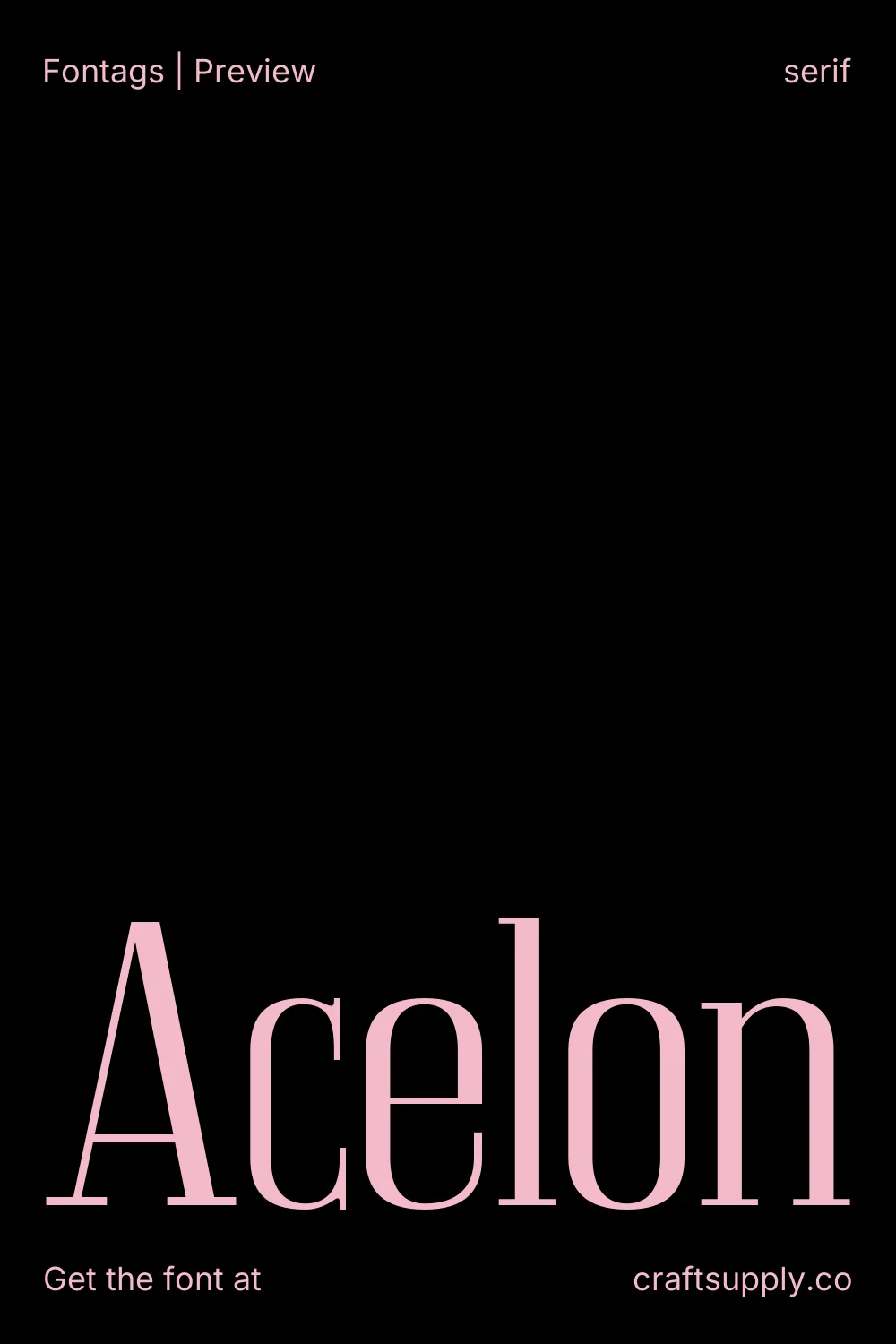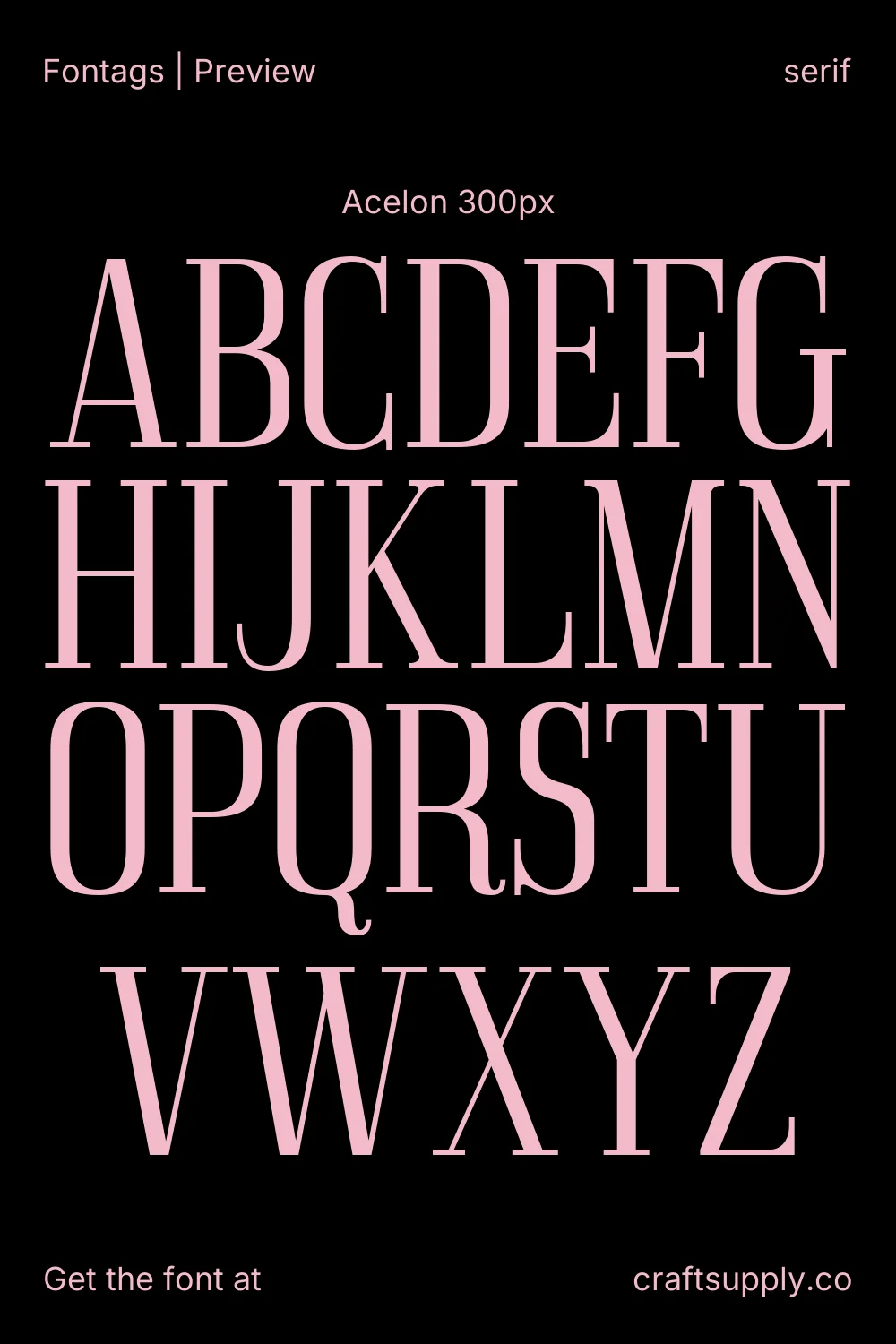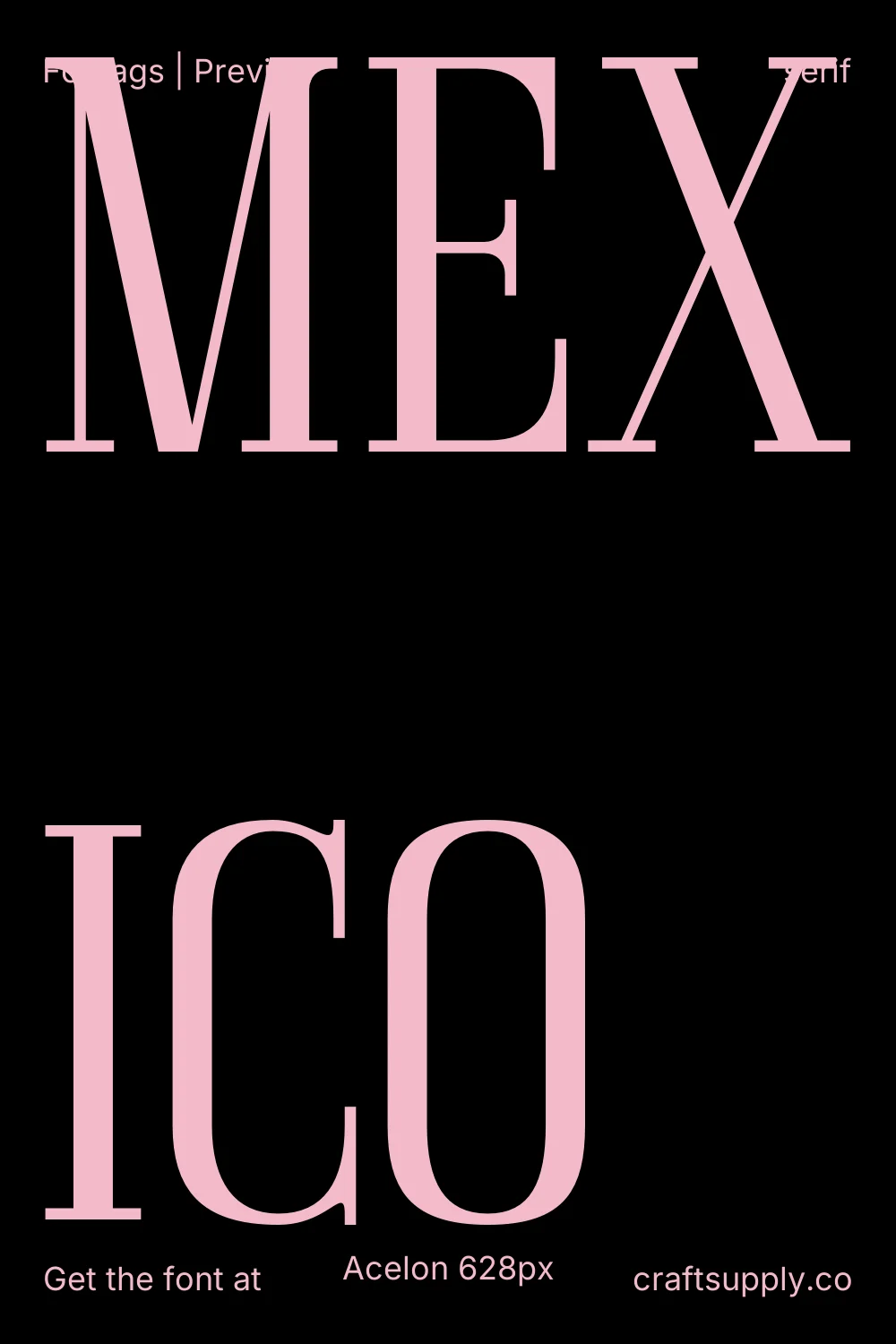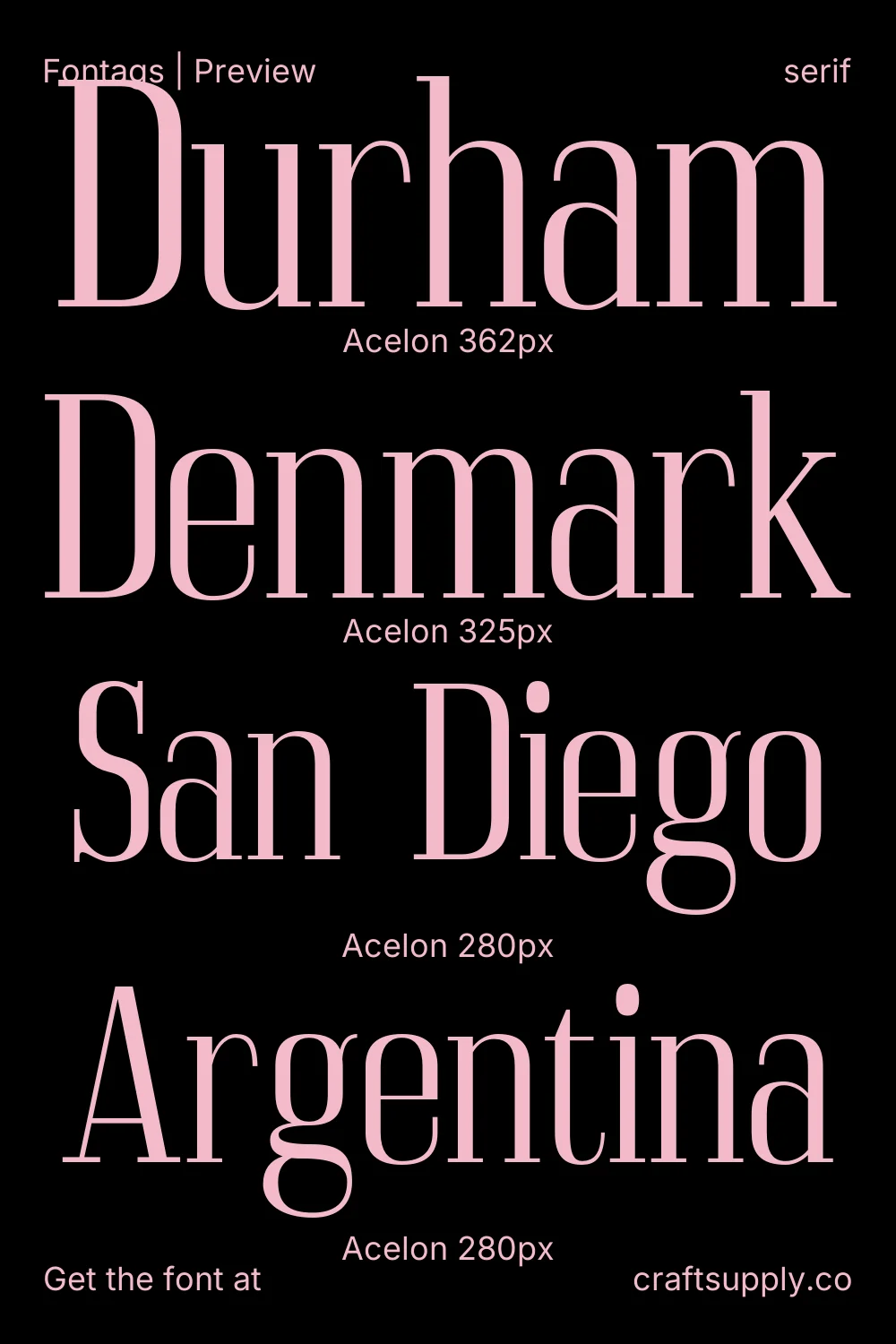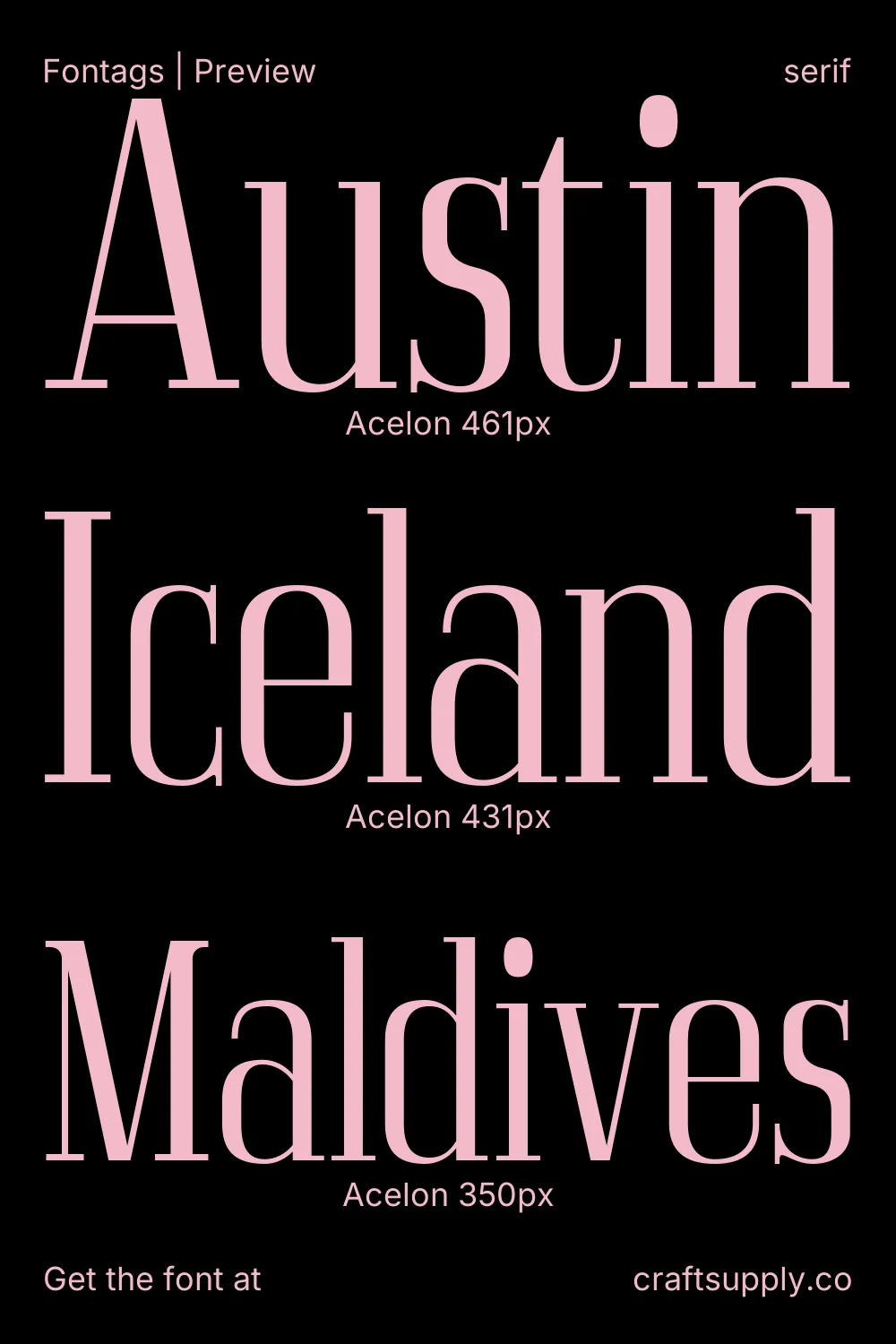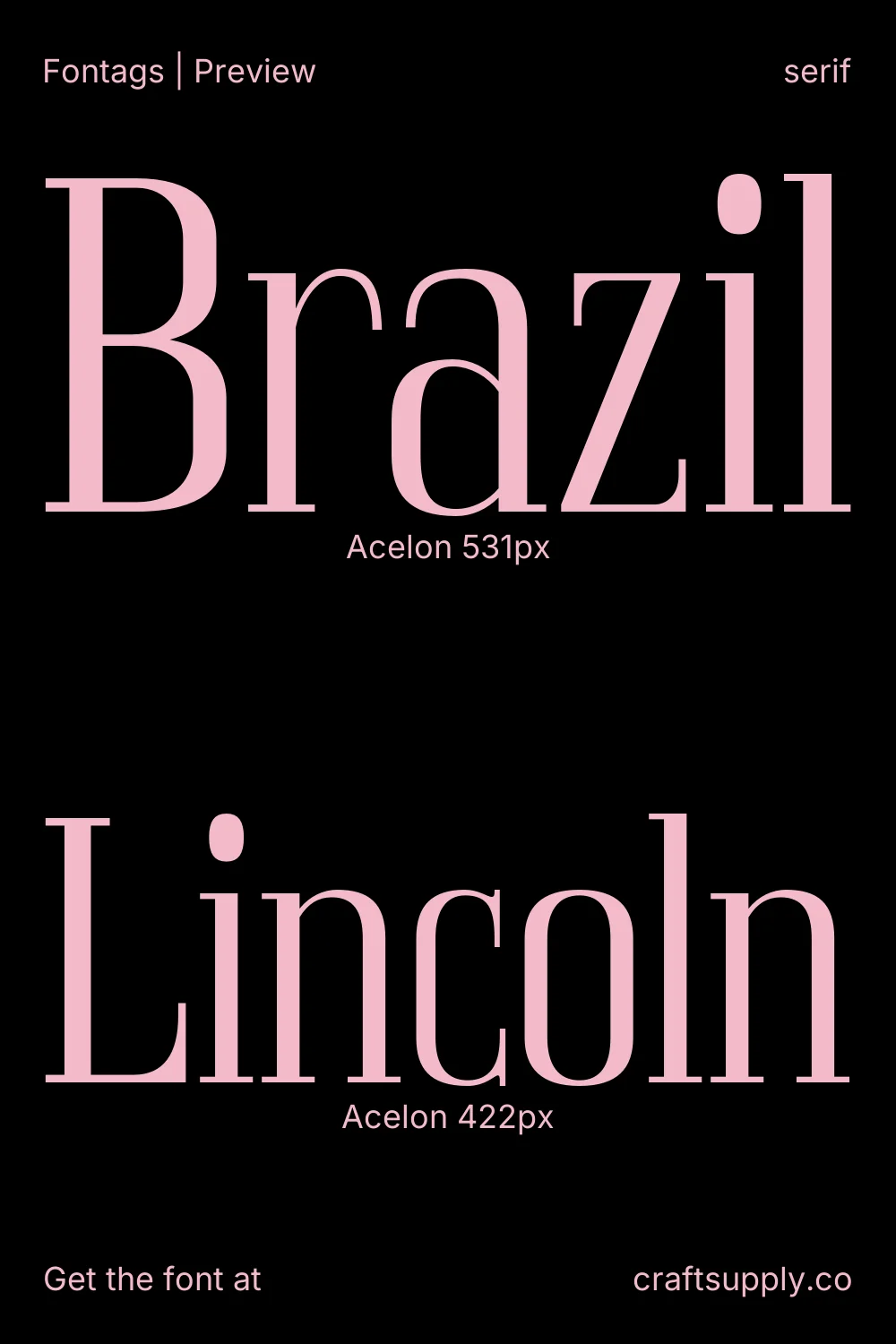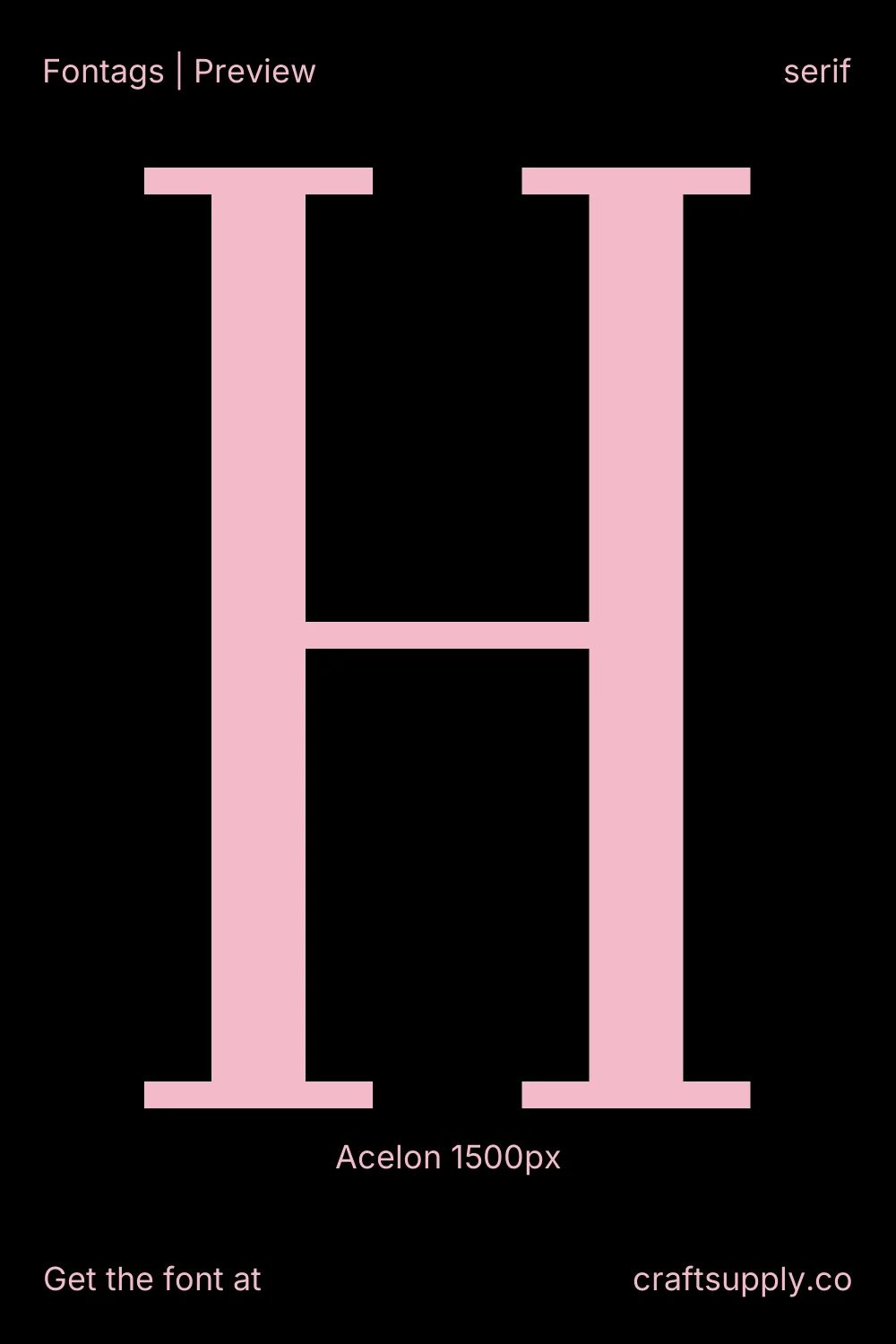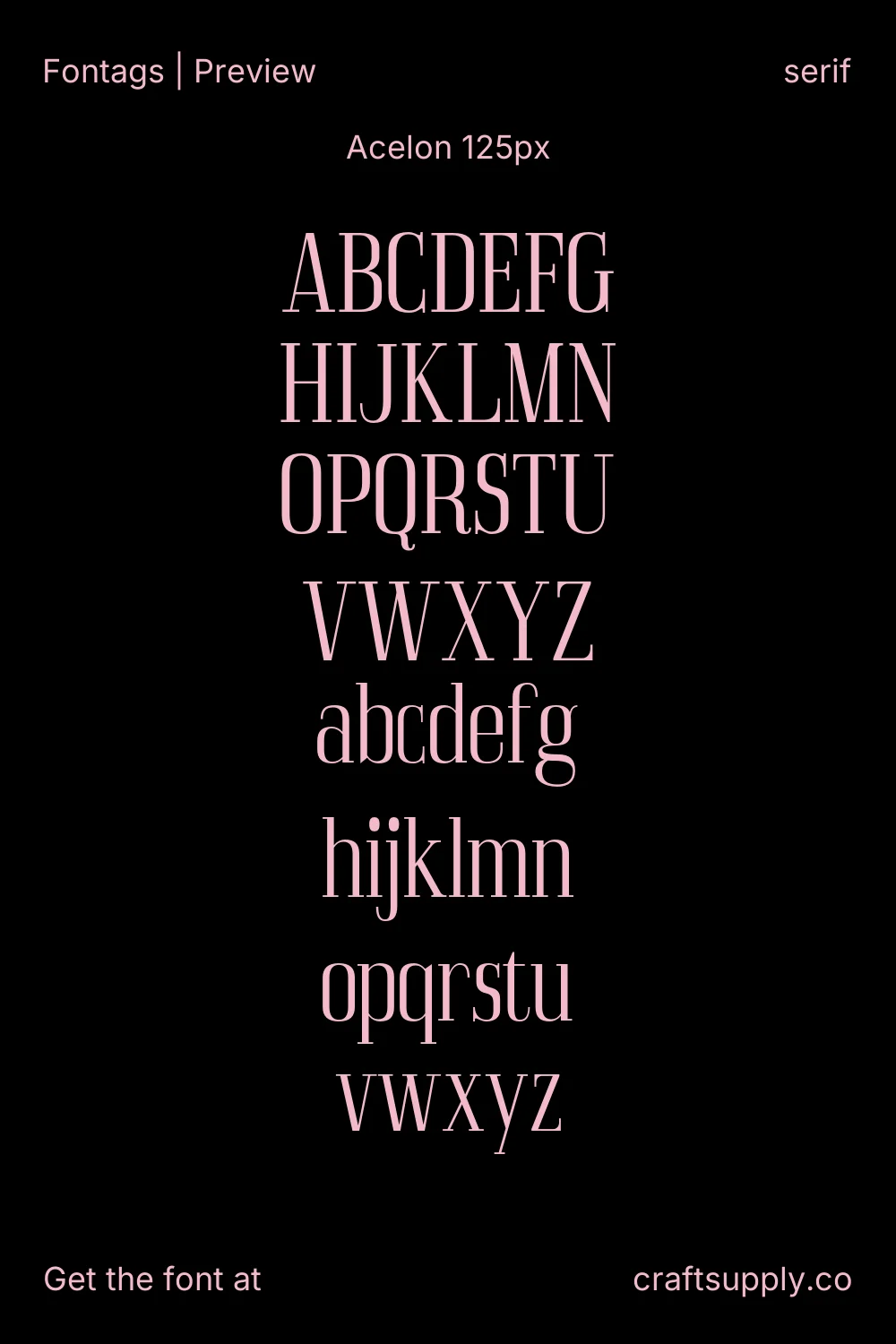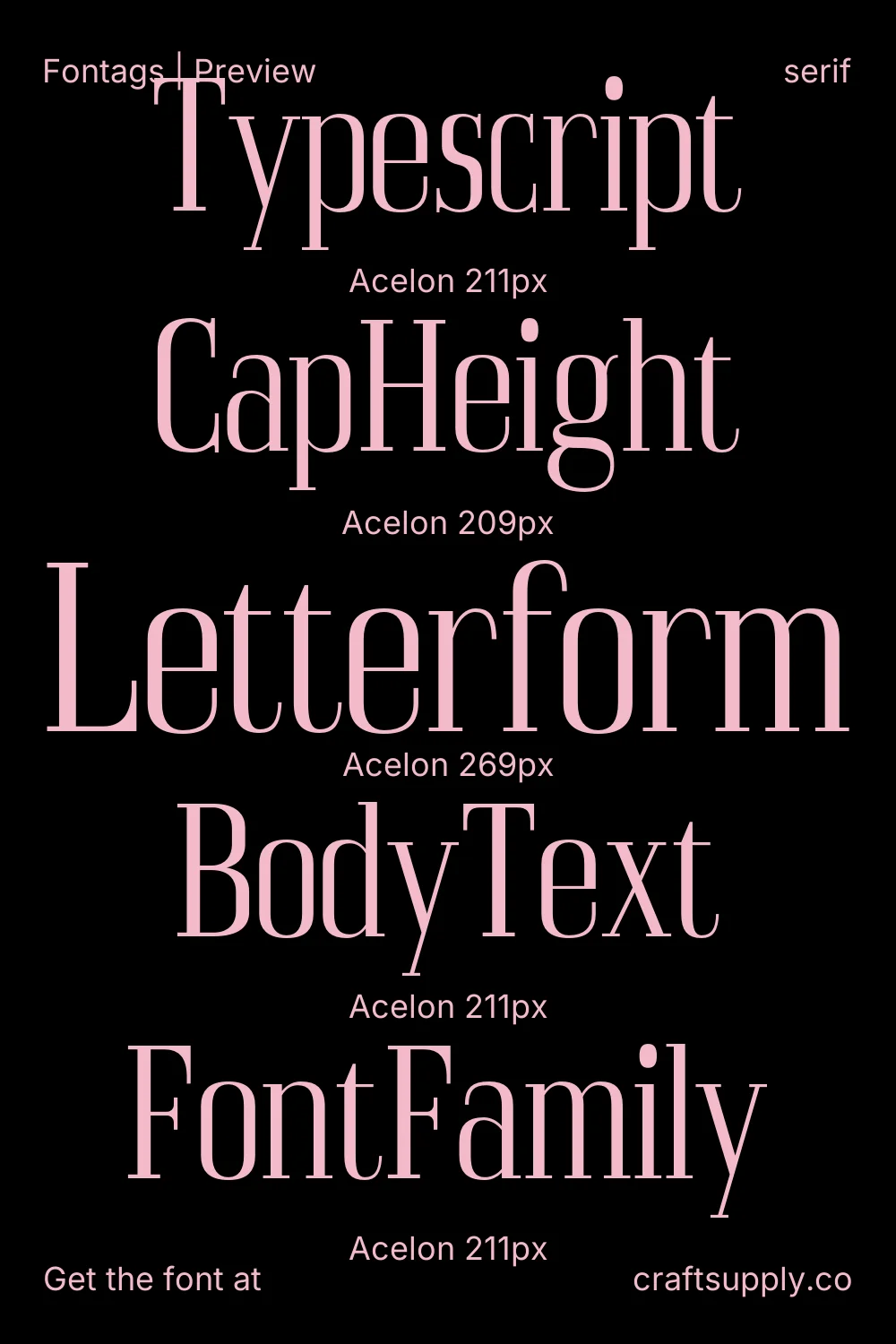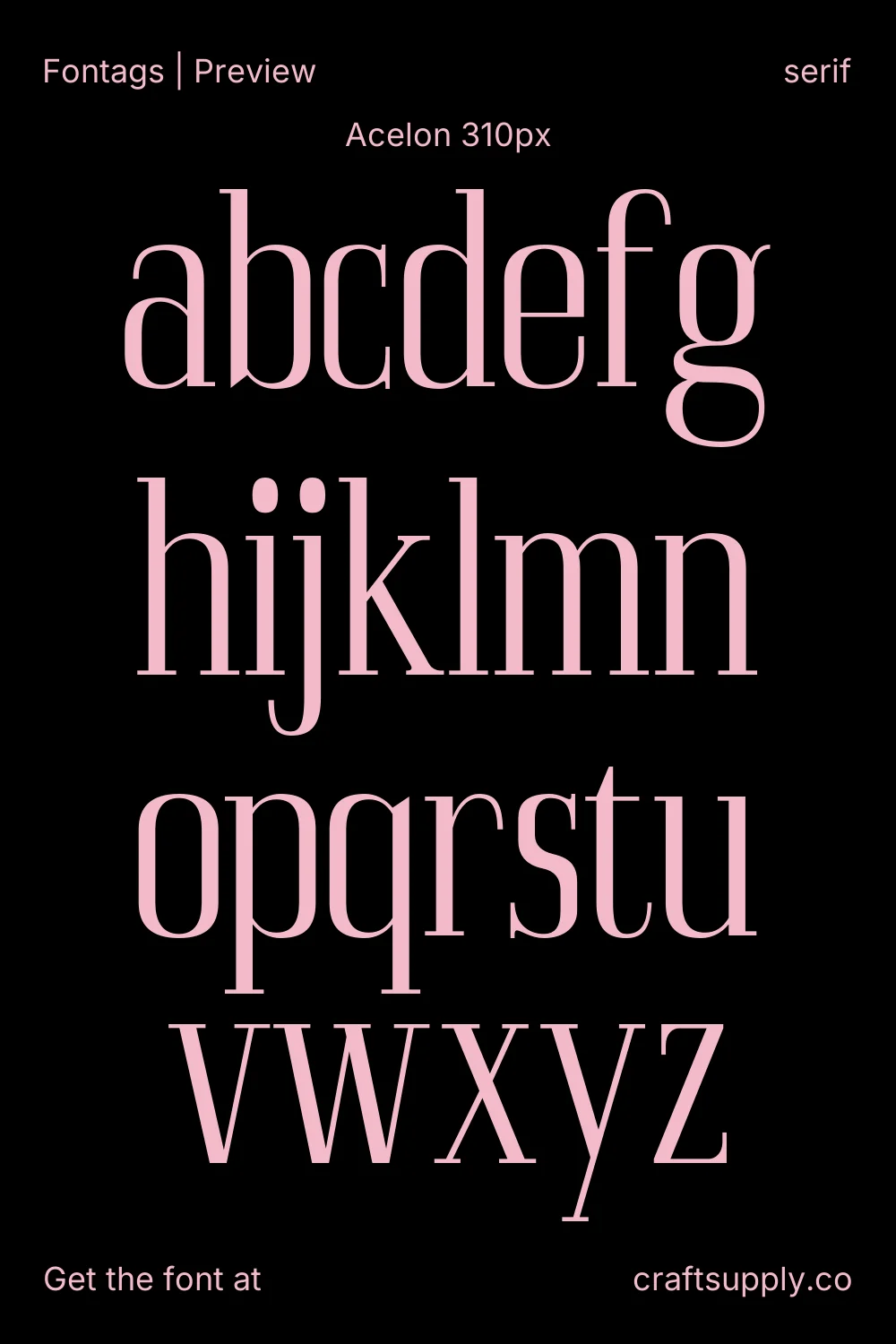
Acelon
Acelon is a condensed serif font that exudes streamlined sophistication and corporate authority. Its tall, precise strokes make it ideal for branding, editorial layouts, and annual reports. This versatile typeface brings a refined, professional touch to any design project.